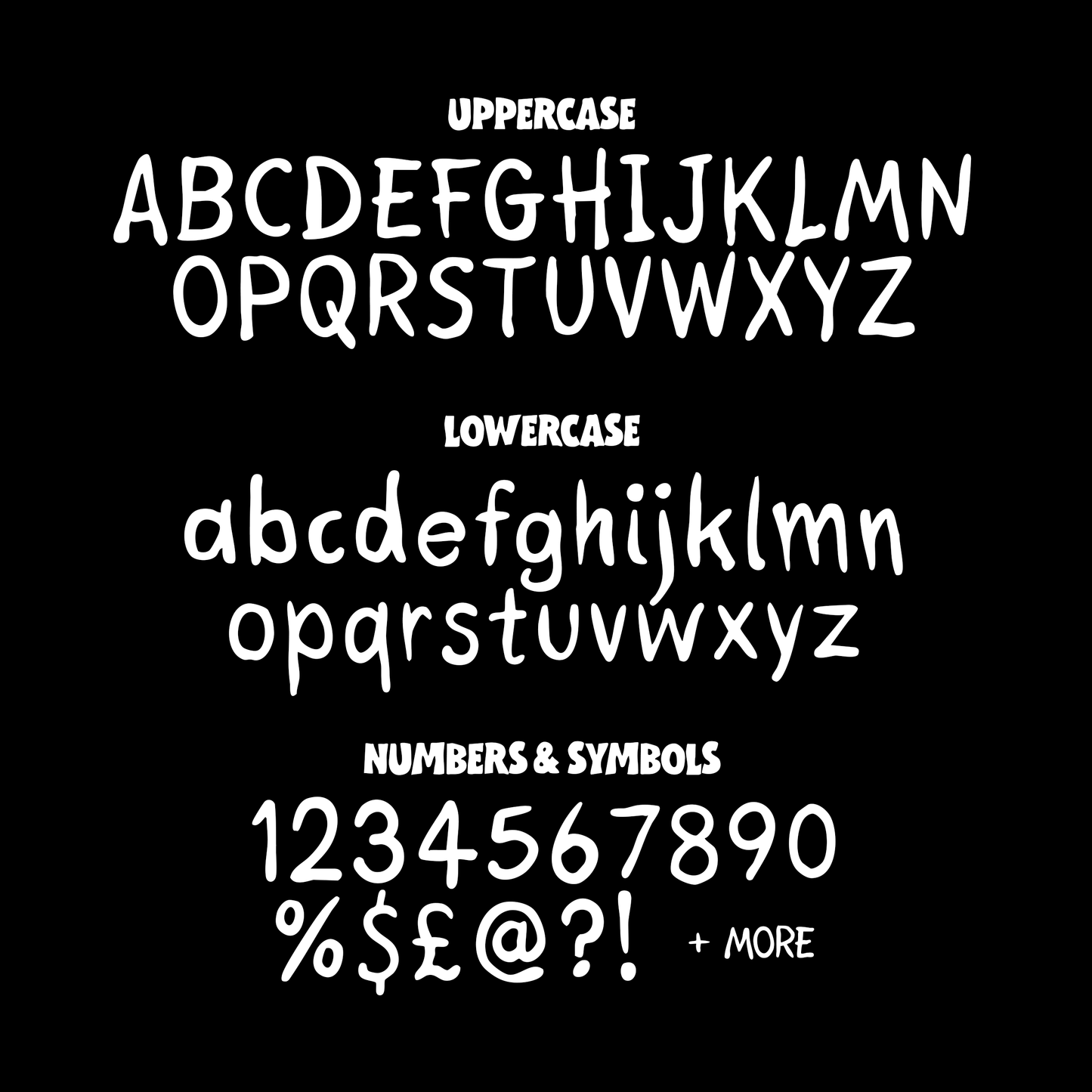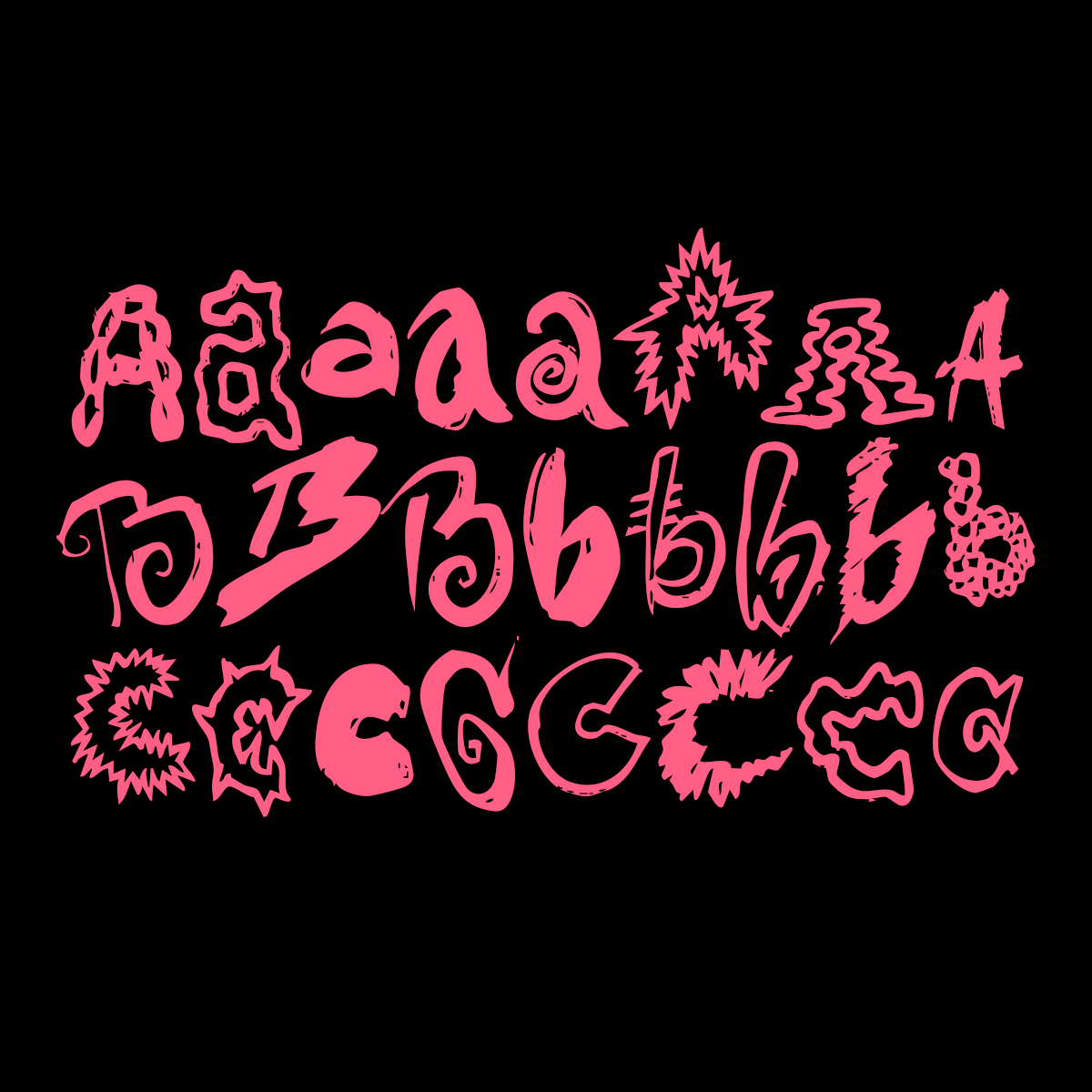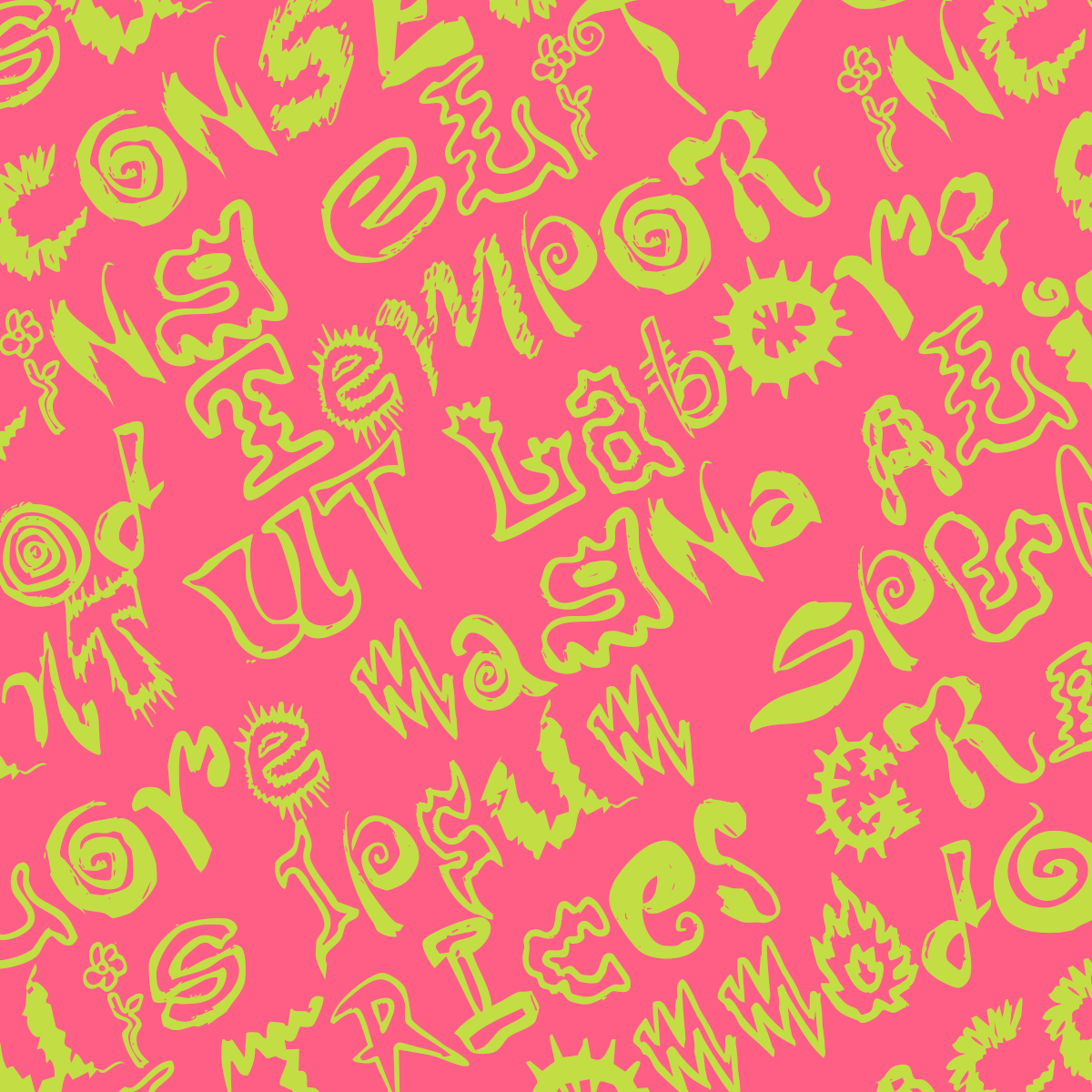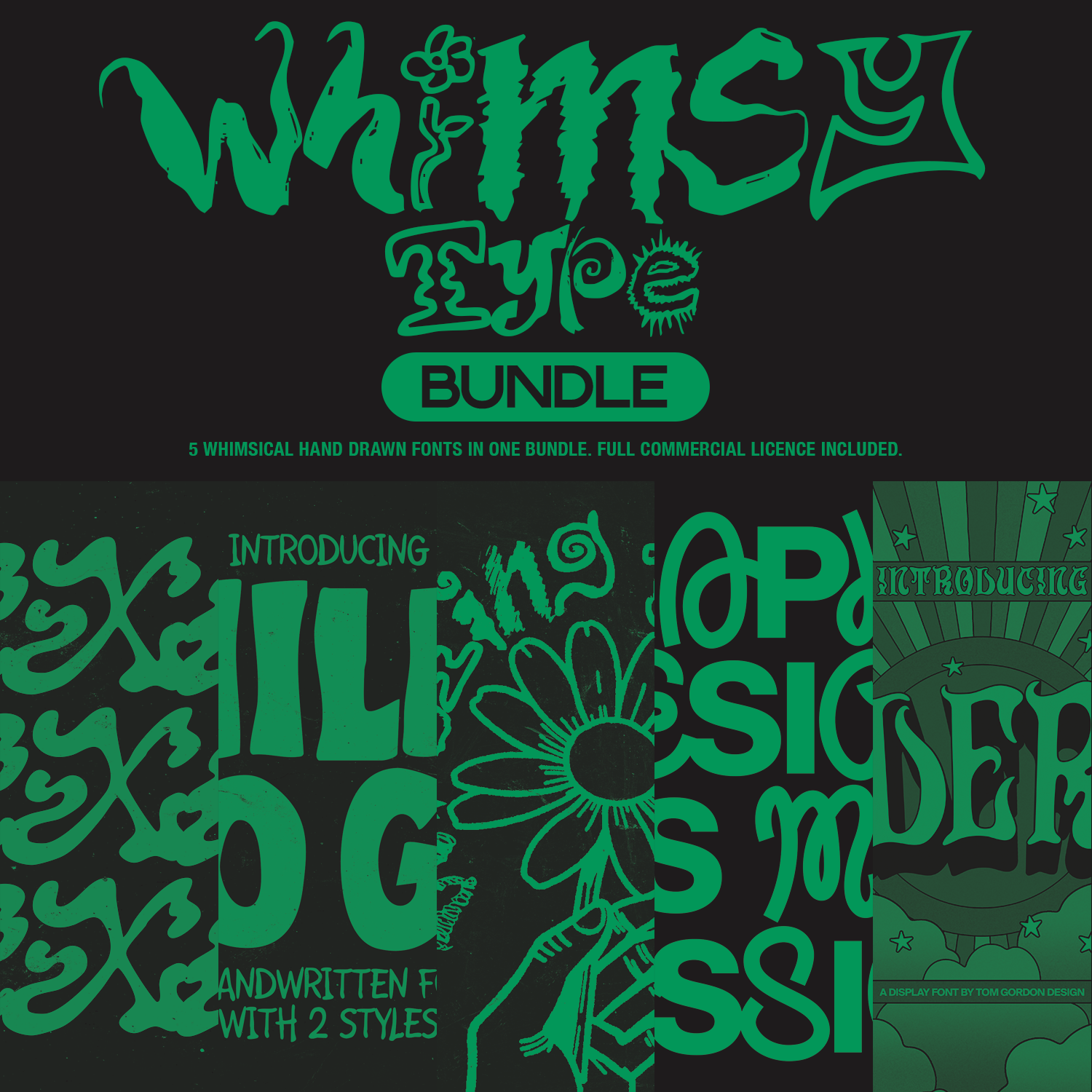
Whimsy Type Font Bundle
“Whimsy Type Bundle” includes 5 of my unique hand-drawn fonts! This collection of hand-drawn fonts brings the fun into design work. These fonts are perfect for adding to illustrative design work. These fonts are perfect for bringing a hand-done feel to your work with tonnes of variation and styles.
Motion Sickness
Hexed
Miles To Go (2 Styles)
Silly Goose
Sonderful